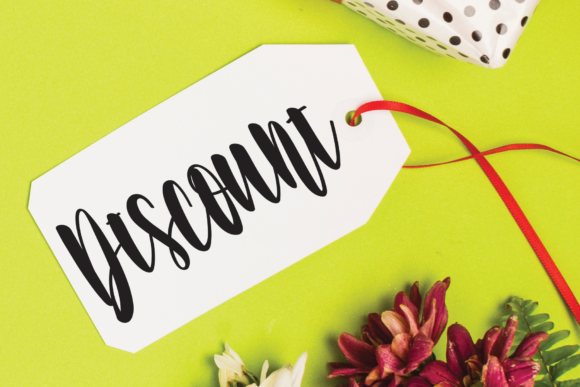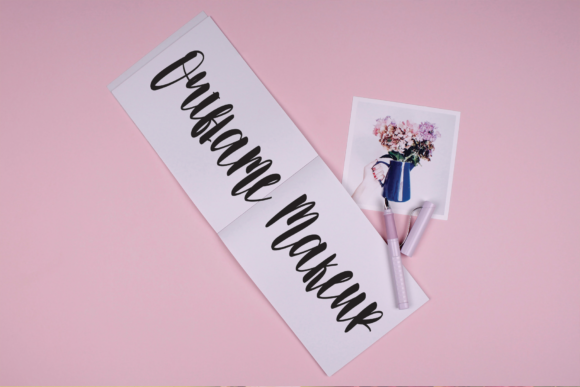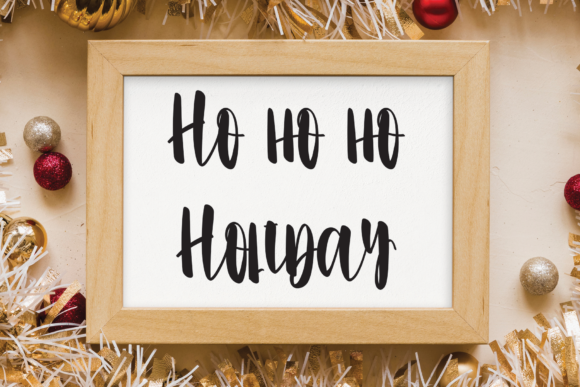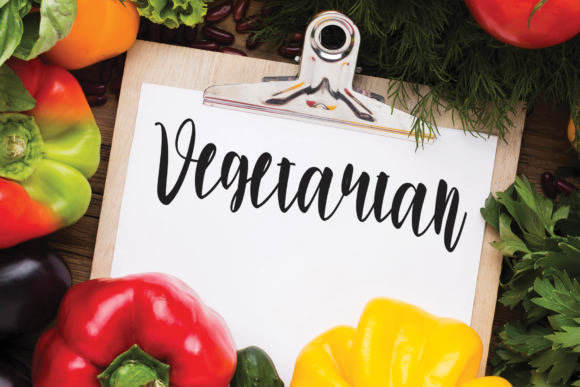
About Santa Claus Font
Santa Claus is a creative handwriting font perfect for signs, invitations, Christmas cards, quotes, fashion, magazines, business cards, branding, t-shirt designs, and so much more!